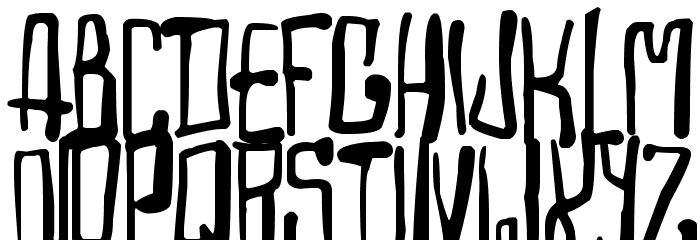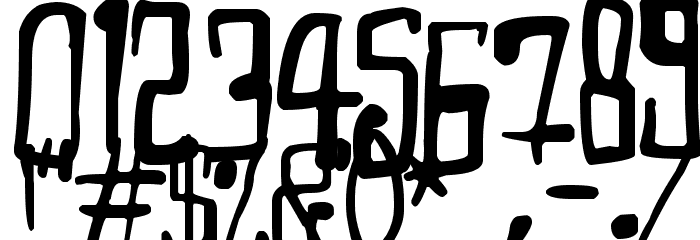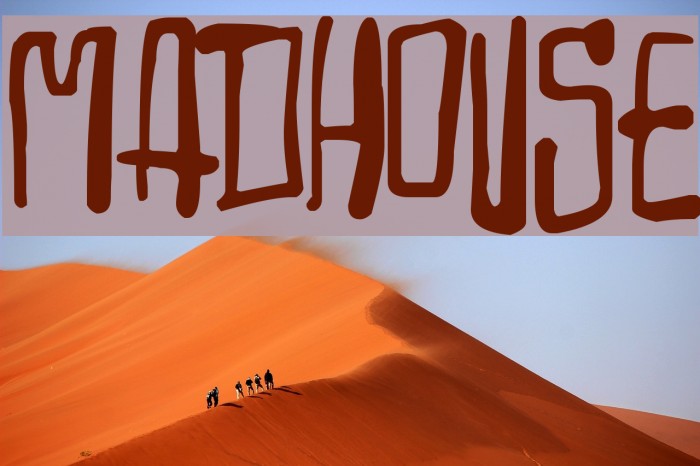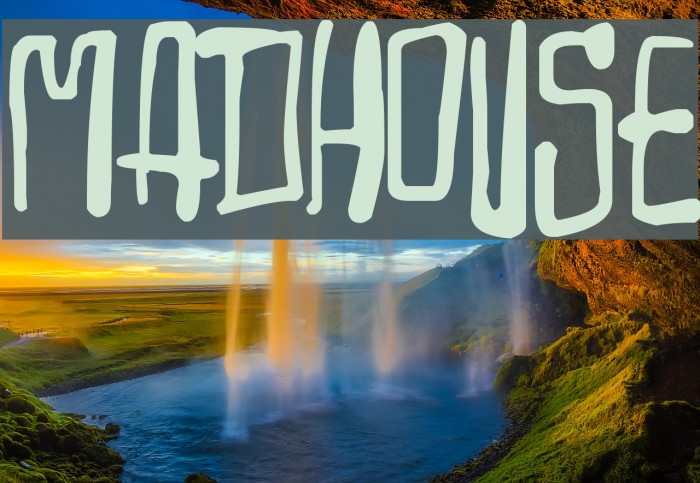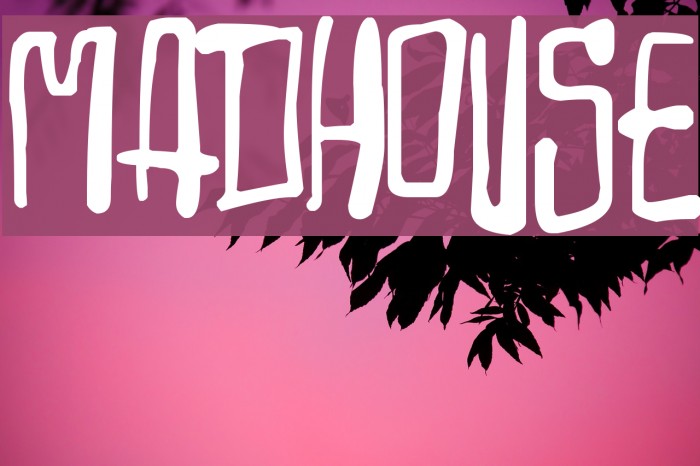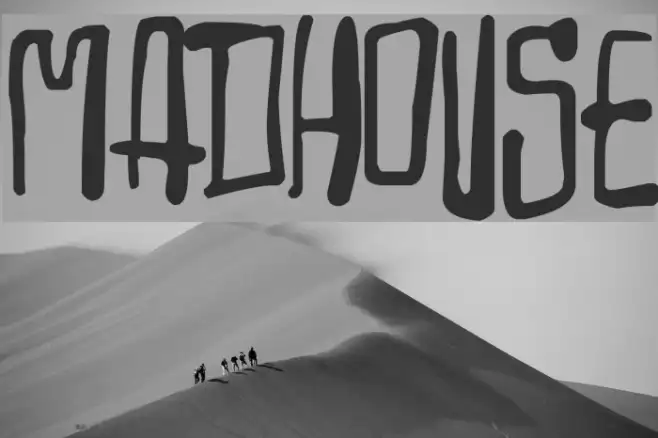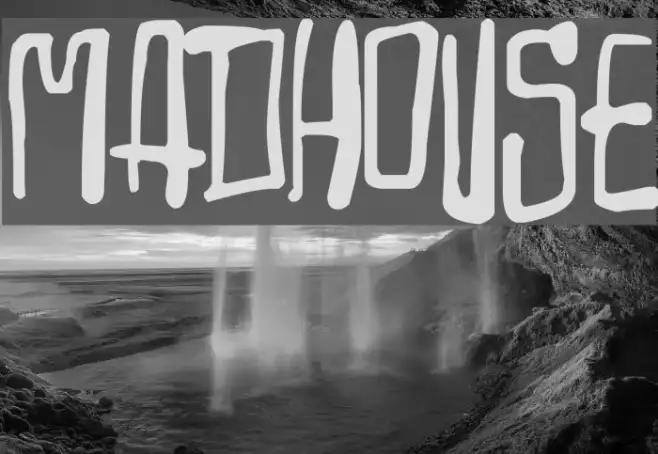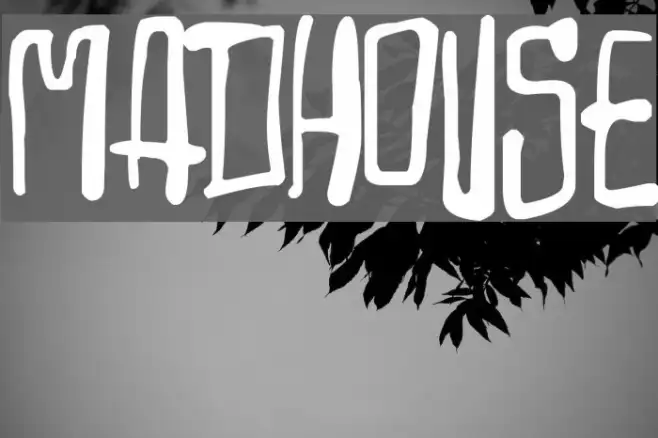
Madhouse Font
This font features a bold and expressive style with a hand-drawn appearance. The characters have a unique, irregular form that gives them a dynamic and energetic feel. The strokes are thick and uneven, adding to the font's distinctive personality. The uppercase and lowercase letters maintain a consistent style, while the numerals and special characters follow the same bold and quirky design. This font's playful and artistic nature makes it stand out, making it suitable for creative and unconventional projects.
A bold, hand-drawn font with an expressive and irregular style.